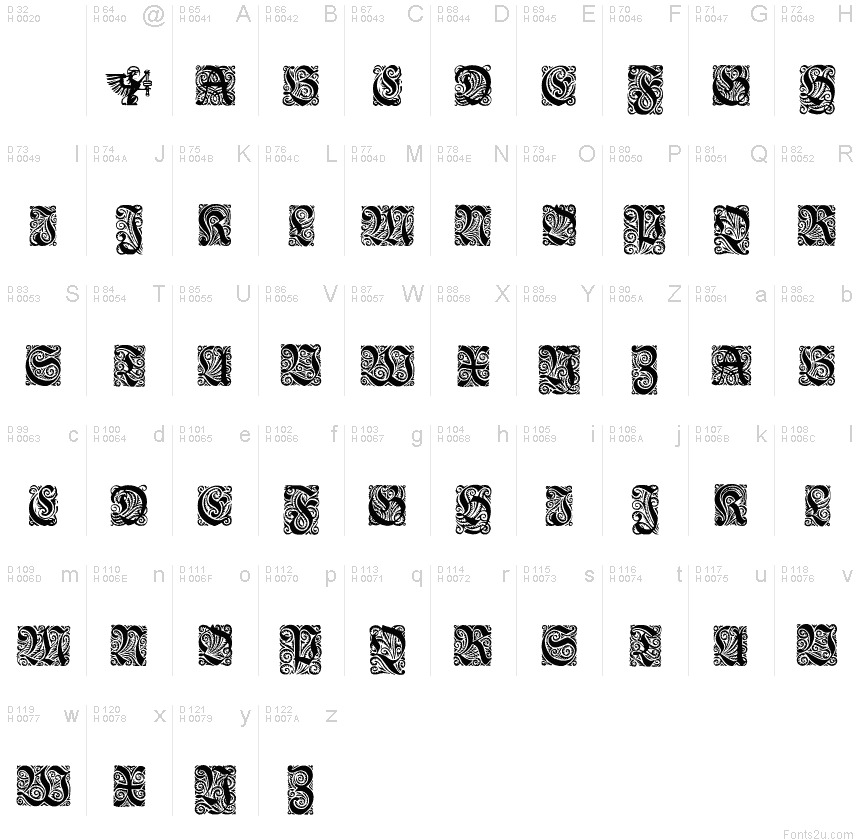
Ehmcke-Fraktur Initialen by Dieter Steffmann of Typographer Mediengestaltung is a free blackletter initials font with densely ornamented forms. Thick curved strokes are threaded with fine hatching, leaflike curls, and compact flourishes. Each letter resembles an engraved ornamental emblem.
As an illustrated emblem, the lettering can shape historical book covers, heritage event posters, fantasy game graphics, and period packaging. In publishing, its interlaced foliage turns chapter openings into decorative art rather than ordinary text.